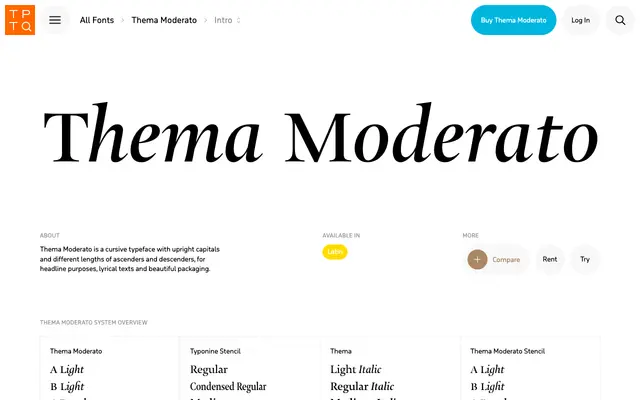
Thema Moderato specimen from Typotheque
Part of Typotheque's Thema system, offering two parallel serif sub-styles across four weights alongside stencil and condensed variants.
Thema Moderato is a serif type system from Typotheque offering two optical variants, labelled A and B, across four weights from Light to Bold. The system extends into stencil cuts via Thema Moderato Stencil, and connects to the broader Thema family which includes italic styles, as well as the Typonine Stencil in regular and condensed forms. The family's city-named styles — Amsterdam through Hong Kong — suggest an international scope suited to editorial and cultural publishing contexts.
Thema Moderato appears to be part of the Thema type system from Typotheque, a serif family with stencil variants and multiple optical sub-styles, consistent with a transitional or contemporary serif classification.